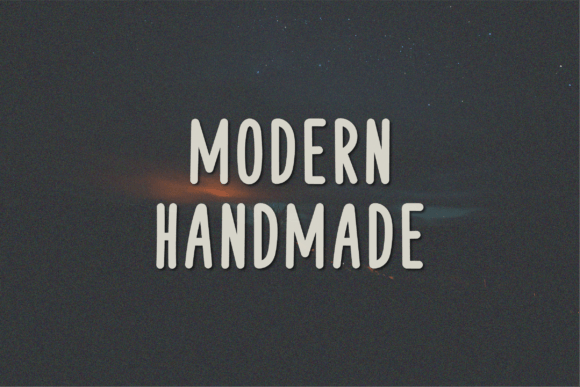
Embrace the Whimsical Charm of Modern Handmade Font: A Sans Serif Masterpiece
Step into a world of creativity and charm with Modern Handmade Font, a captivating all-caps sans serif font family. Crafted with meticulous attention to detail by the talented Becraft, this font exudes a playful spirit that's sure to leave a lasting impression.
Unleash Your Artistic Flair:
With its quirky and playful personality, Modern Handmade Font is the perfect choice for adding a touch of whimsy to your creative projects. Whether you're crafting personalized greeting cards, designing eye-catching digital content, or creating stunning presentations, this font has the innate ability to transform your ideas into captivating visuals.
Make a Statement in the World of Tattoos:
With its bold and impactful presence, Modern Handmade Font has become a beloved choice among tattoo enthusiasts. Its distinct character adds a touch of individuality and artistic flair, making it the perfect font for expressing yourself through permanent body art.
Elevate Your Designs with Modern Handmade Font:
Add a touch of sophistication to your designs with Modern Handmade Font. Its clean and contemporary lines create a sense of elegance that's perfect for branding, marketing materials, and website design. Whether you're aiming for a modern or vintage aesthetic, this font has the versatility to seamlessly blend with your creative vision.
The Perfect Font for Every Occasion:
Modern Handmade Font is the ultimate versatile font, effortlessly adapting to a wide range of projects and design needs. Whether you're creating wedding invitations, designing social media graphics, or simply adding a touch of personality to your personal correspondence, this font has the remarkable ability to enhance any project with its unique charm.